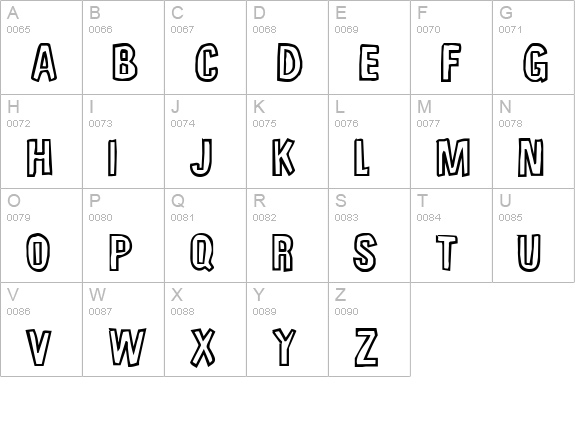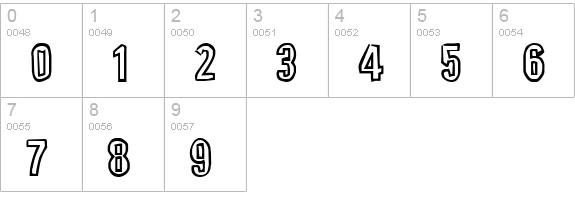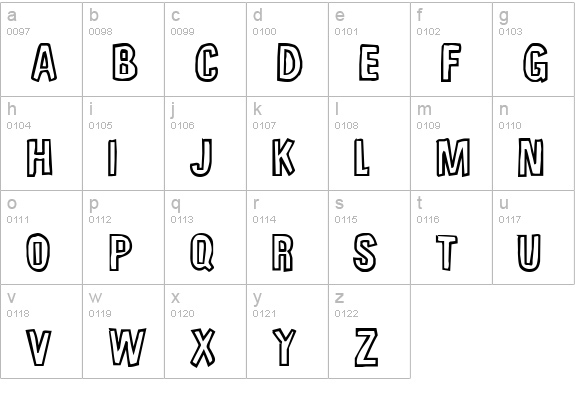
Unfinished Sympathy font is a truly captivating and artistic typeface that effortlessly combines elegance with a hint of rawness. Its unique design exudes a sense of freedom and individuality, making it perfect for those seeking a font that breaks away from the ordinary. With its imperfect brush strokes and slightly unfinished edges, Unfinished Sympathy font captures the essence of creativity and spontaneity. It adds a touch of character and authenticity to any project, whether it be a logo, branding, packaging, or even a headline. What sets Unfinished Sympathy font apart is not only its stunning aesthetic, but also the fact that it is freely available to download at FontsMarket.com. This means that designers and creatives can easily access and utilize this remarkable font without any restrictions or limitations. Whether you're a professional designer or simply someone looking to add a touch of artistic flair to your personal projects, Unfinished Sympathy font is the ideal choice. Its effortless blend of sophistication and edginess is bound to leave a lasting impression, making your designs truly unforgettable. So don't miss out on the opportunity to enhance your typography game with this exceptional font – download Unfinished Sympathy font today, and let your creativity soar!